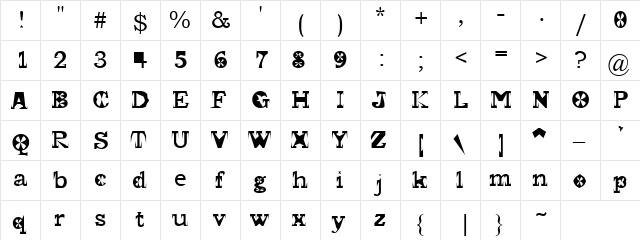
Clown Regular
Design Context for Clown Typeface
Clown is a composed and adaptable typeface that performs quietly and consistently across a wide range of design contexts.
Pro Tip: Use Clown in both headline and body roles to test its range before committing to a single application.